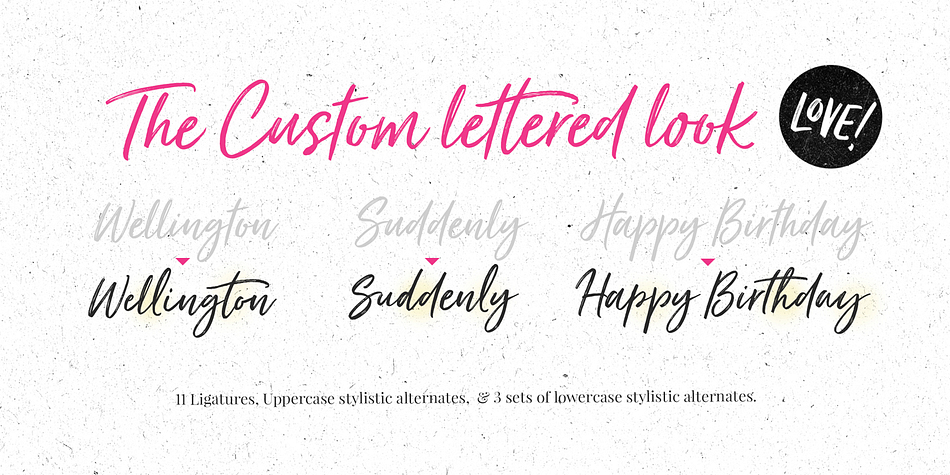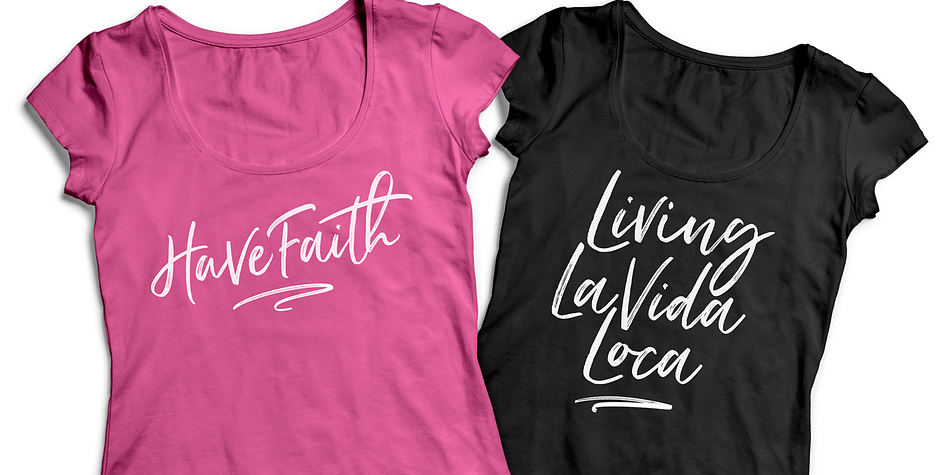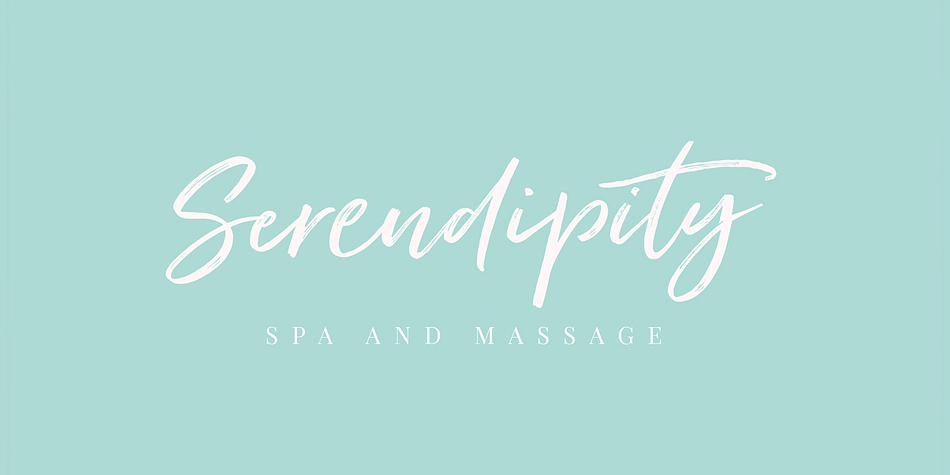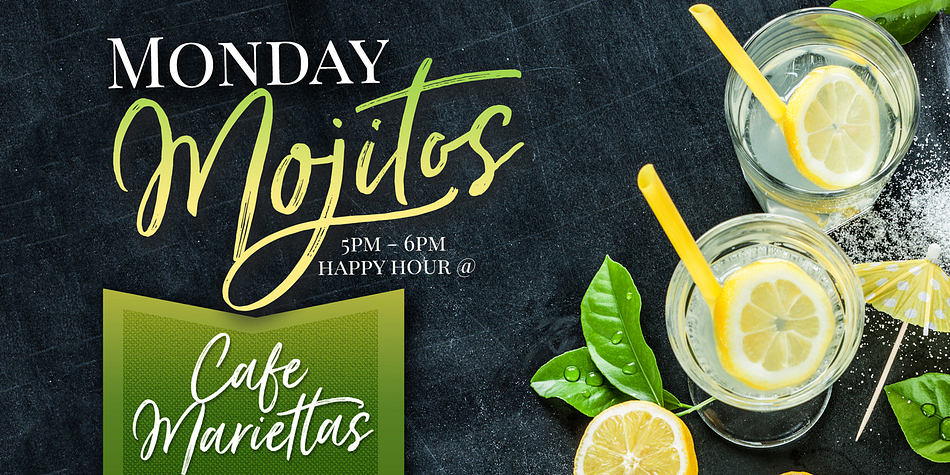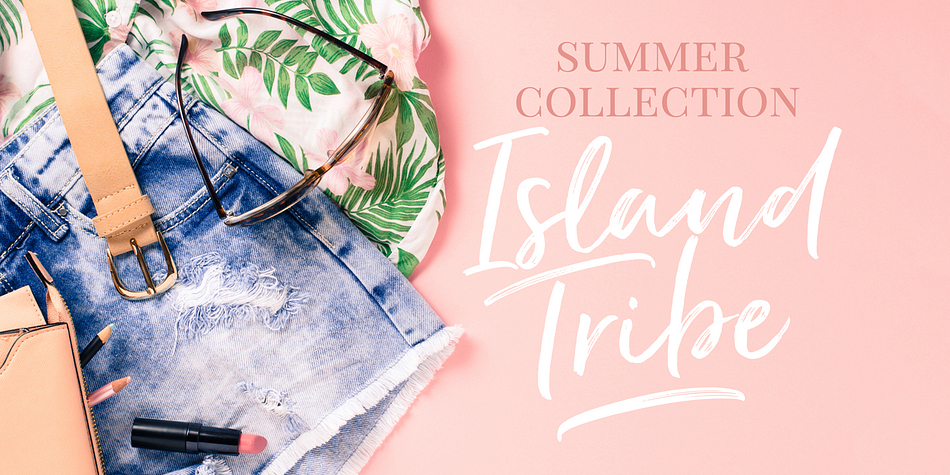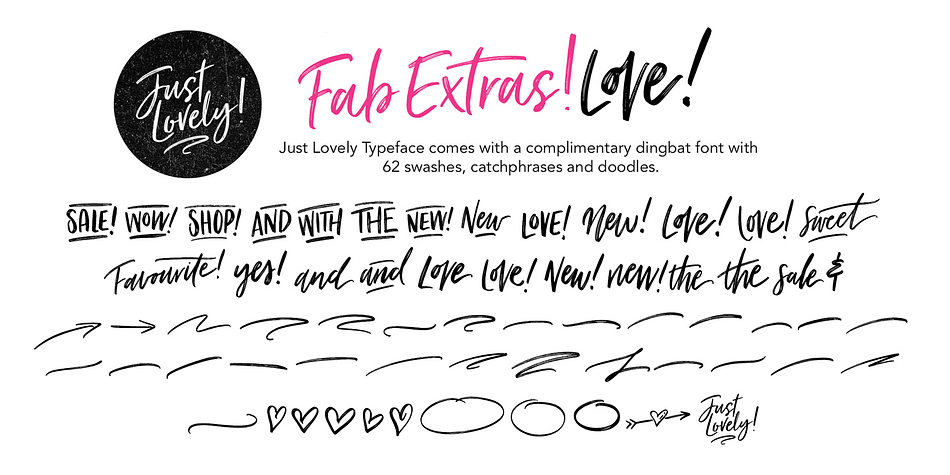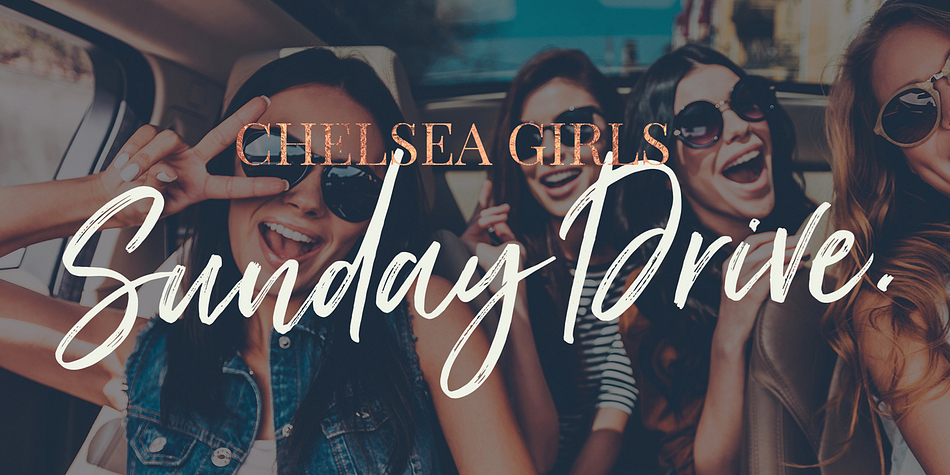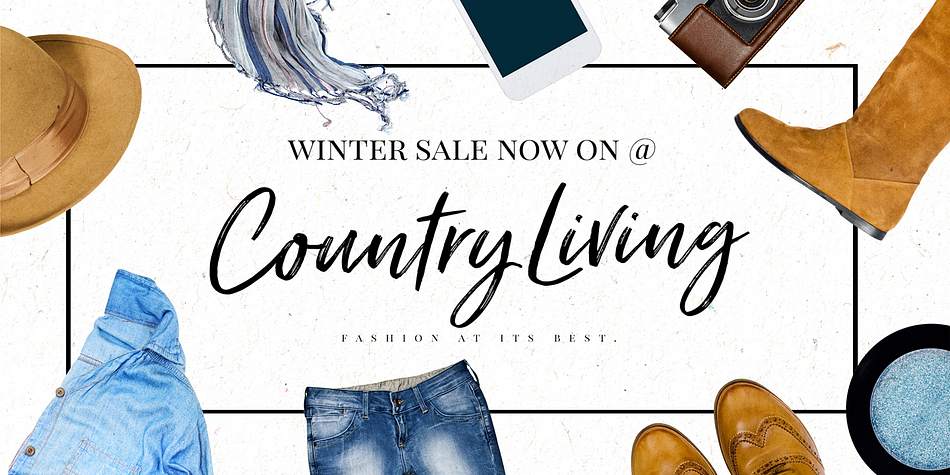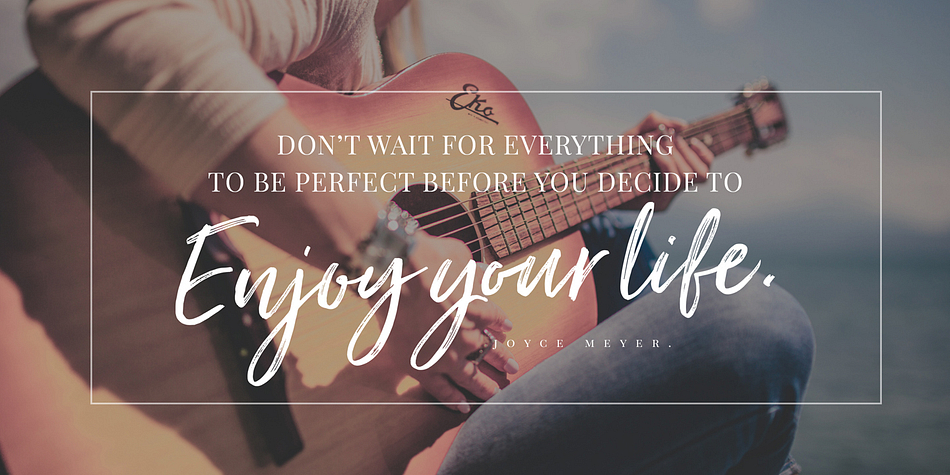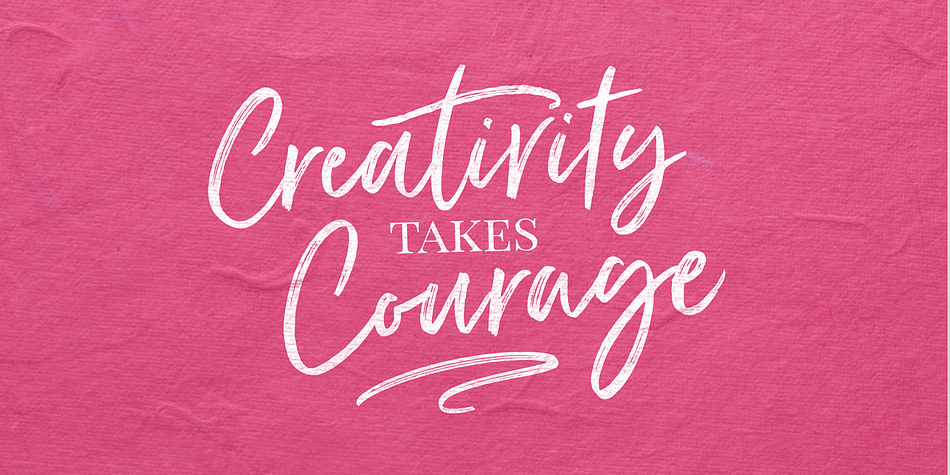
Designed by Nicky Laatz, Just Lovely is a dingbat and modern calligraphy font family. This typeface has four styles and was published by Nicky Laatz.
Say hello to Just Lovely! - a flirty and sleek dry-brushed font family , with a big personality and a multitude of letter variations to make your design look uniquely hand-lettered.
Just Lovely comes with a stylistic set of uppercase letters, 3 sets of lowercase stylistic alternates, and realistically created standard ligatures to ensure you get the look you are after.
To top it all off, Just Lovely comes with a complimentary dingbat font with a set of 62 swashes, catchwords, and doodles to bring your type designs to life!
Just Lovely comes is various styles - Regular, Slanted , and Wide Slanted - each with it’s own unique personality to suit the style you need for your design.